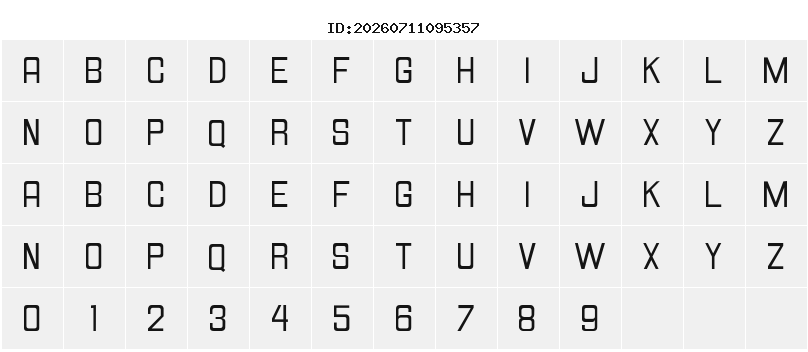
• Font Name: Hallandale Square JL
• Designer: Jeffrey N. Levine
• Manufacturer: Jeff's Fonts & Dingbats
• Description: "Hallandale Square JL".
About Hallandale Square JL.ttf
Hallandale Square JL.ttf is a modern, elegant sans-serif font designed for ultimate readability and visual harmony. Perfect for branding, headlines, web design, and print materials.